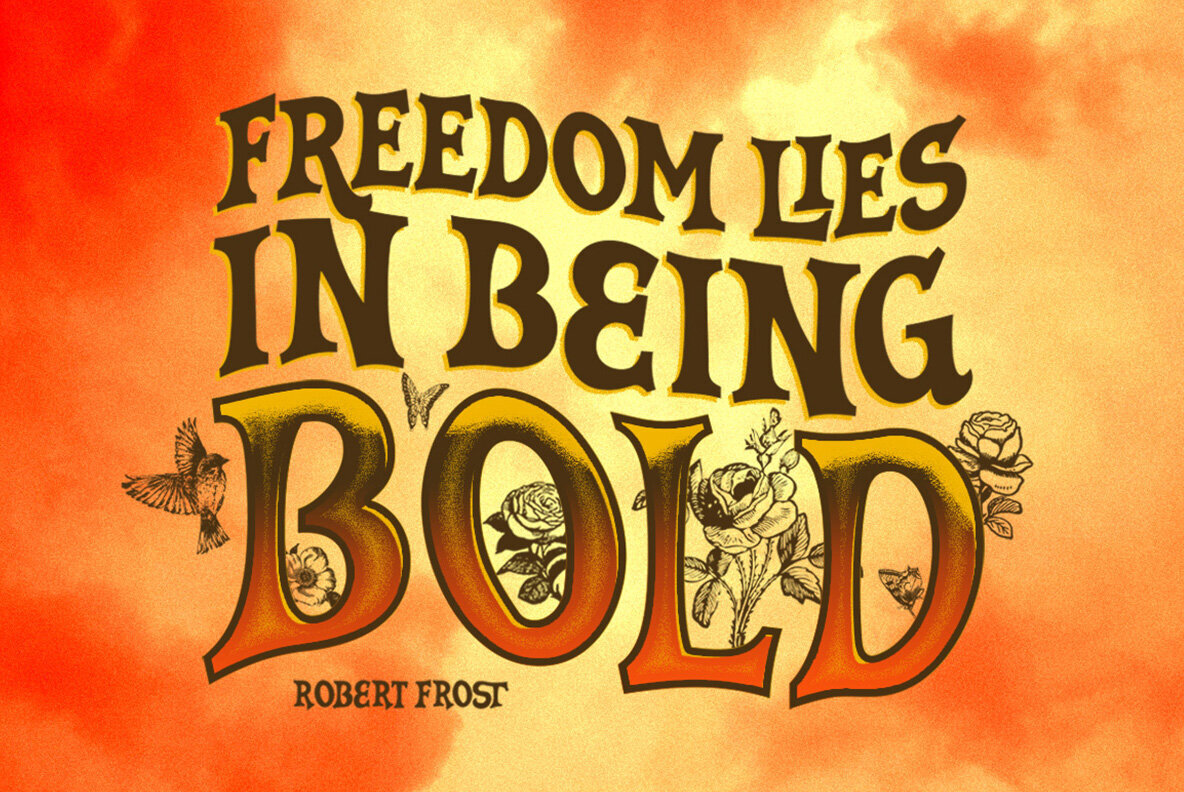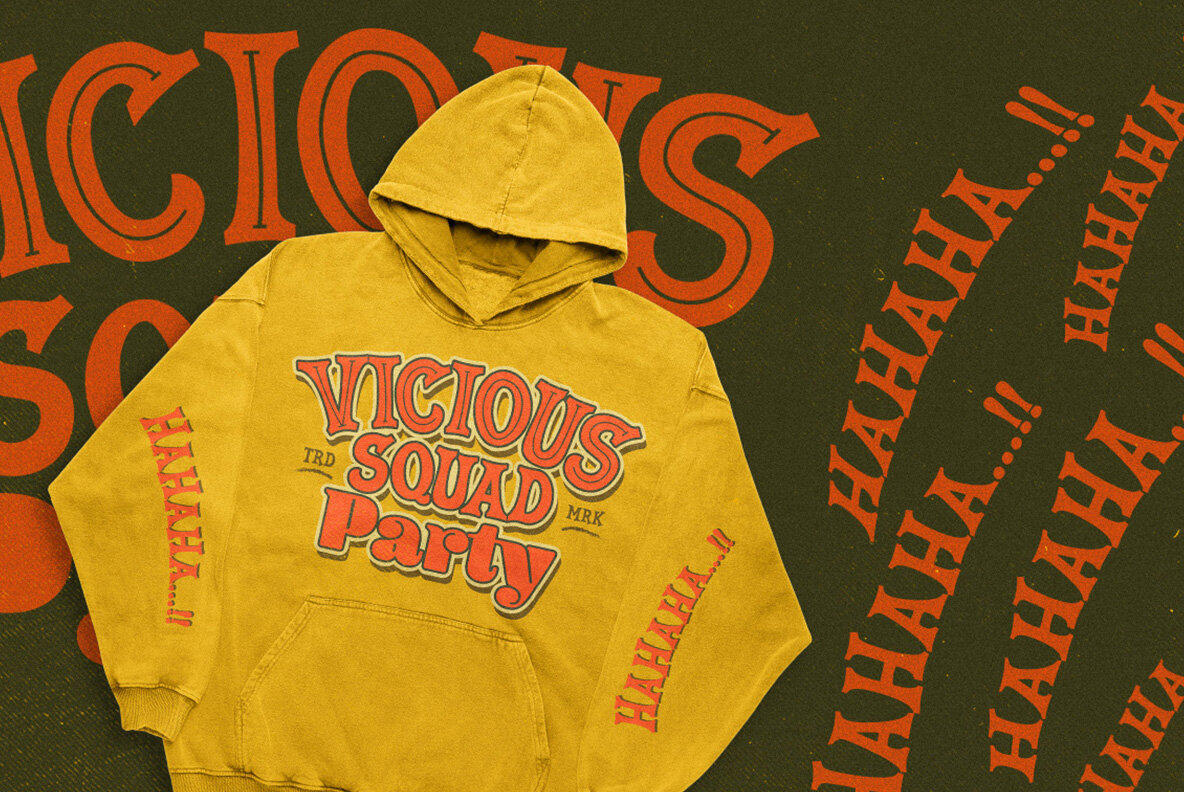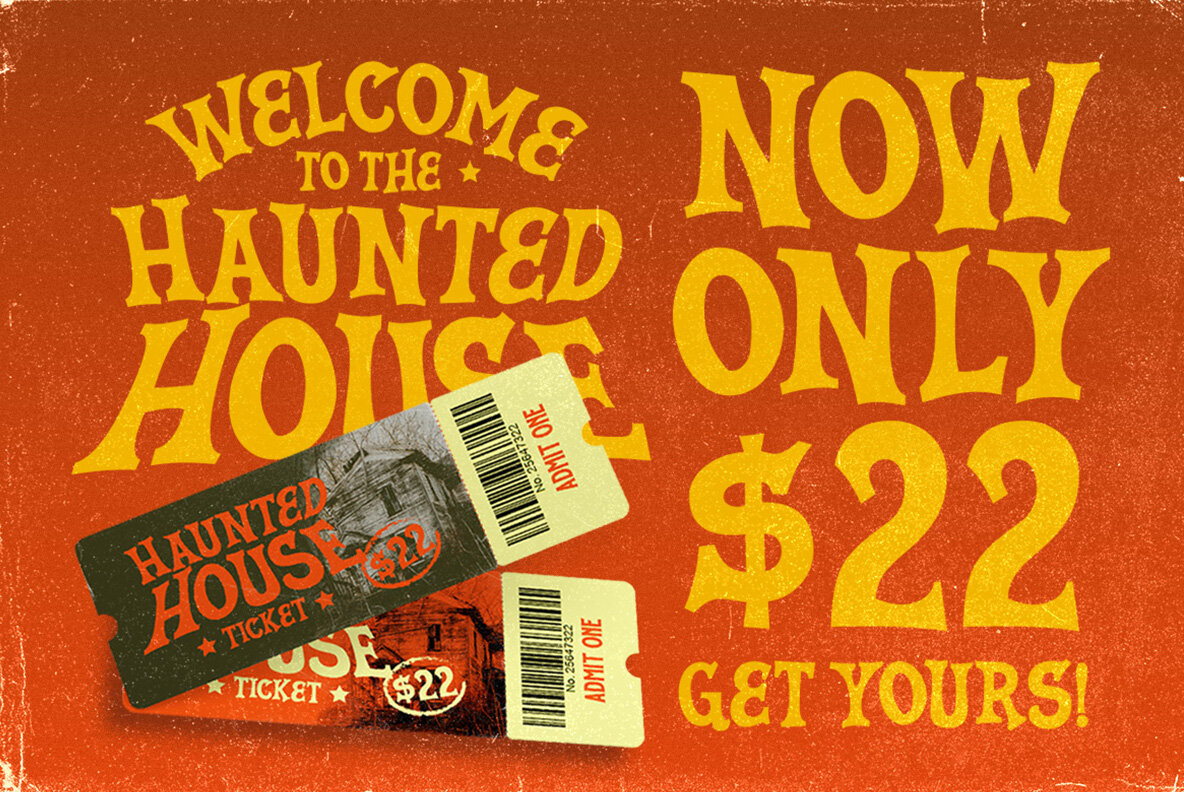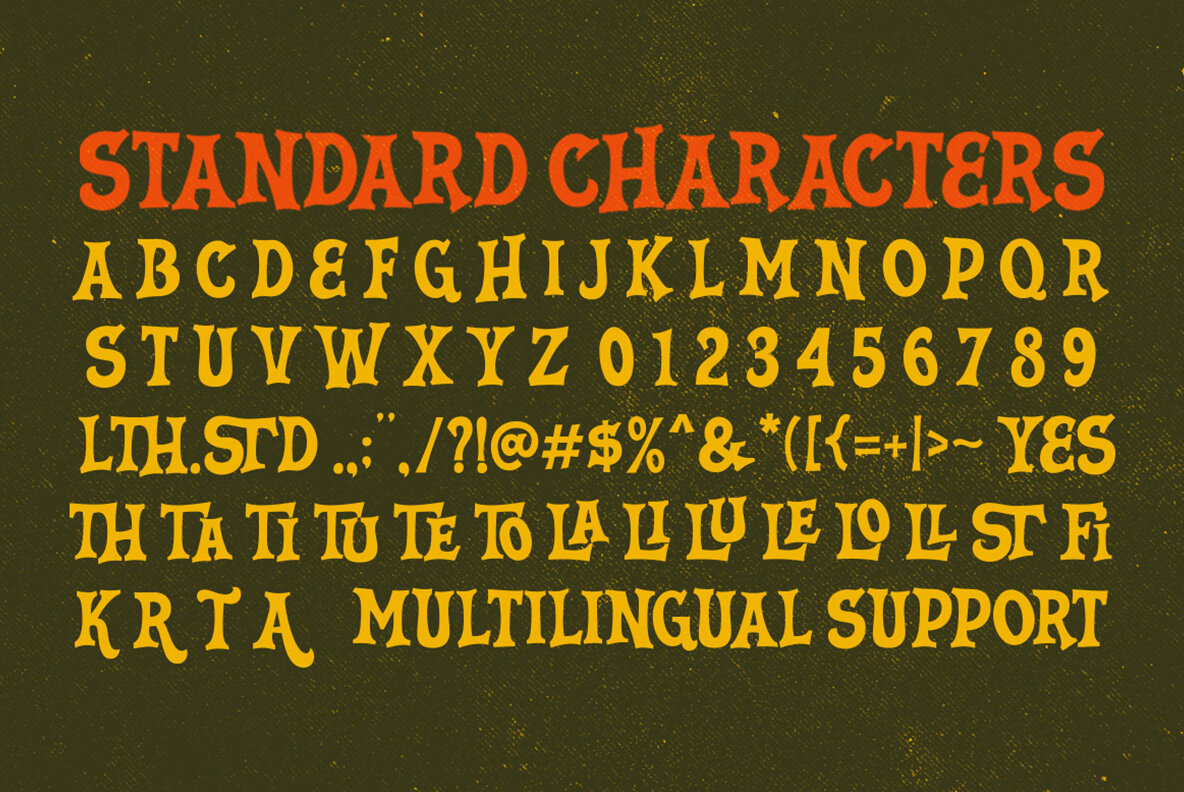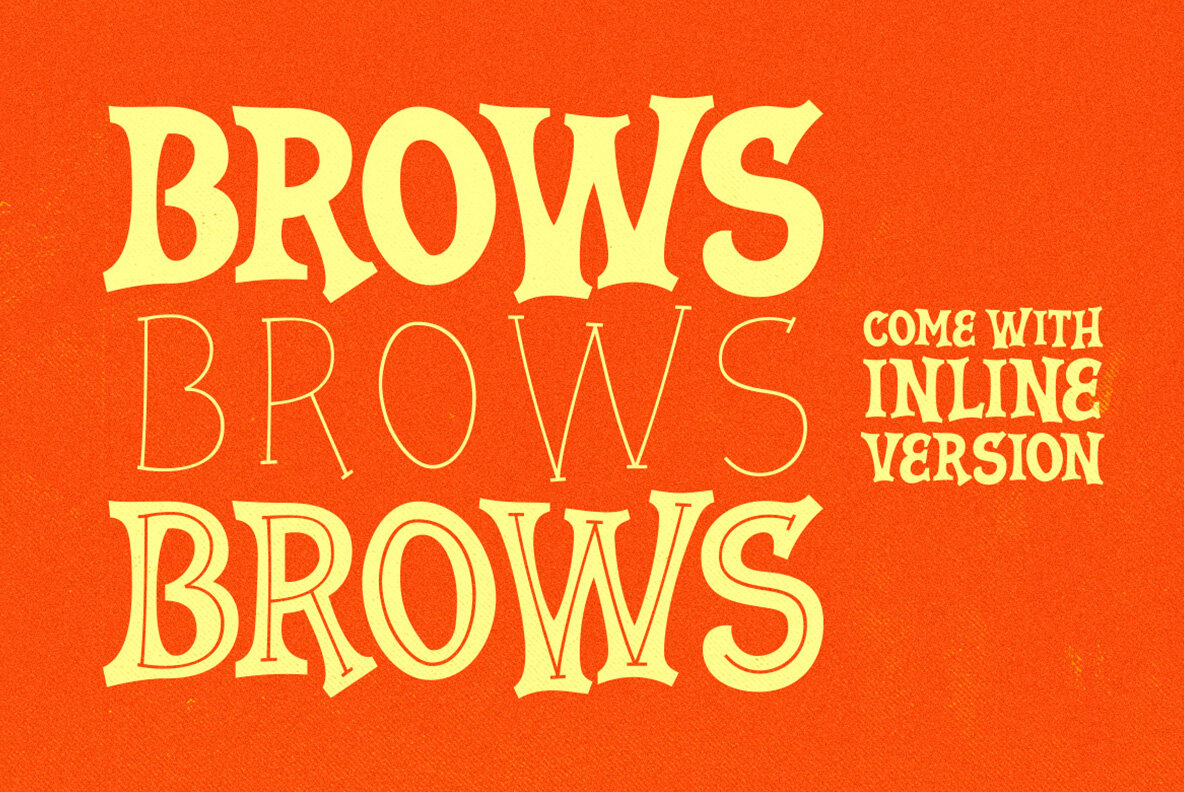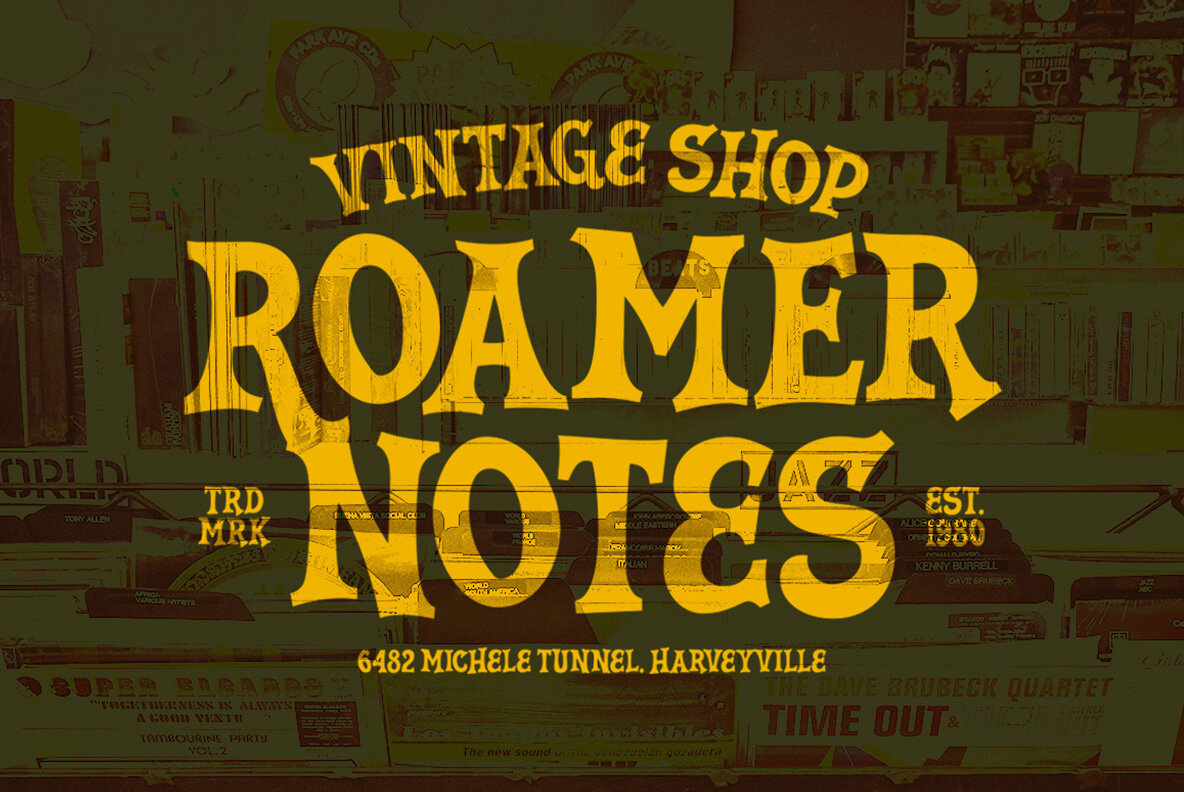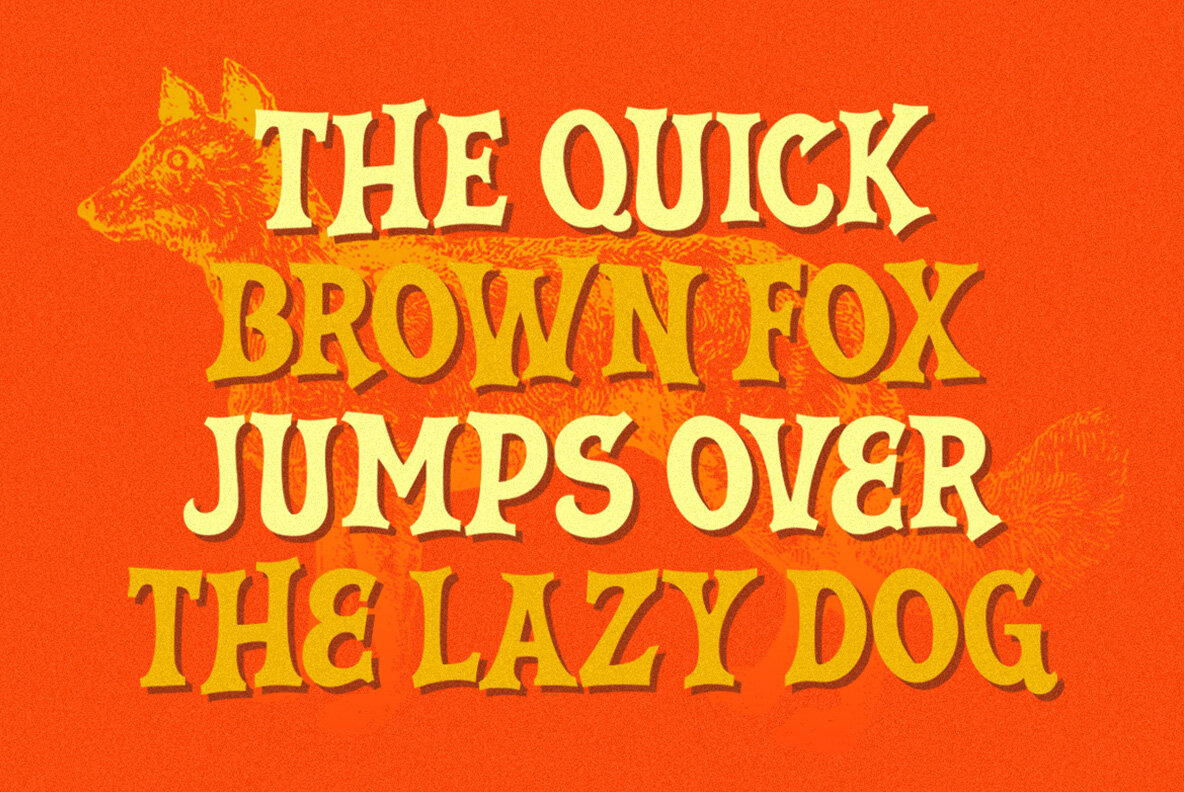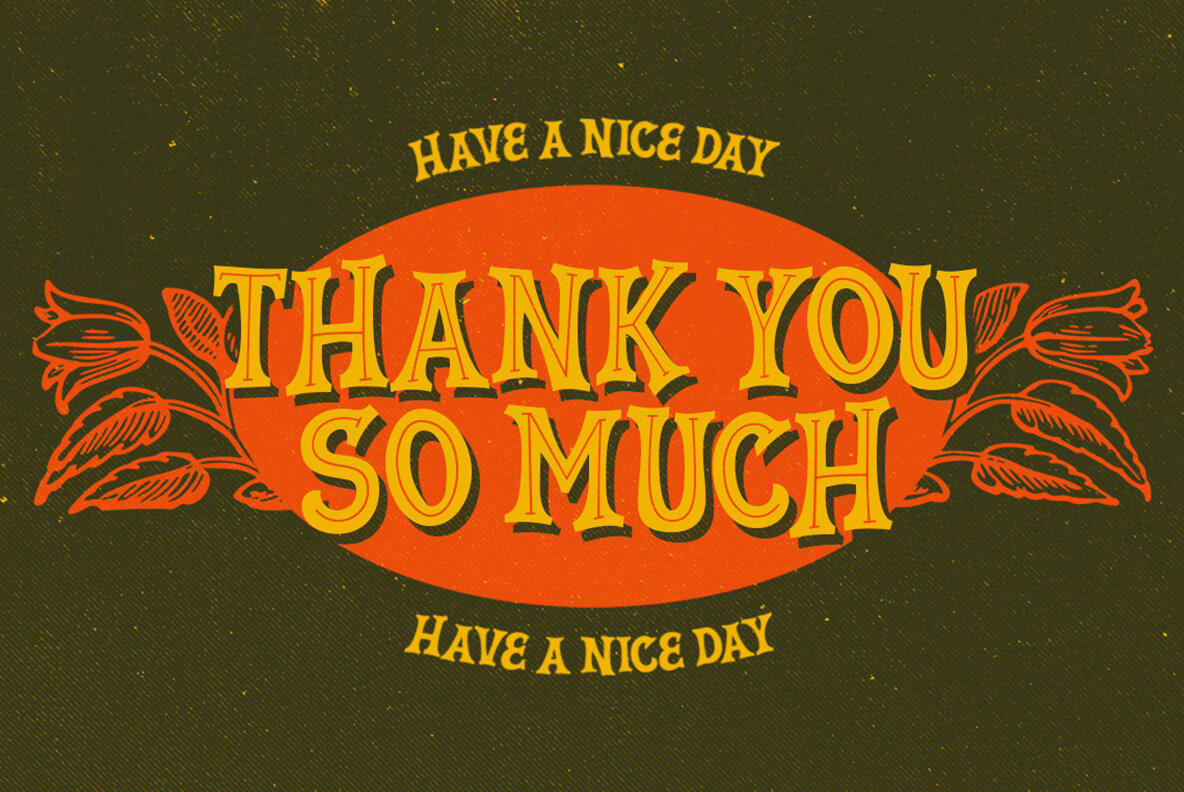
String Hopper Font
String Hopper captures the essence of a unique serif typeface, delivering a bold, vintage aesthetic ideal for projects with a horror, thriller, or spooky yet playful theme. Its distinctive shape enhances logo design and other formal expressions such as invitations, labels, and advertising material, as well as editorial projects. For optimal use, we recommend using programs that support OpenType features and Glyphs panels, such as Adobe applications and Corel Draw.String Hopper: Bold Serif for Vintage Elegance